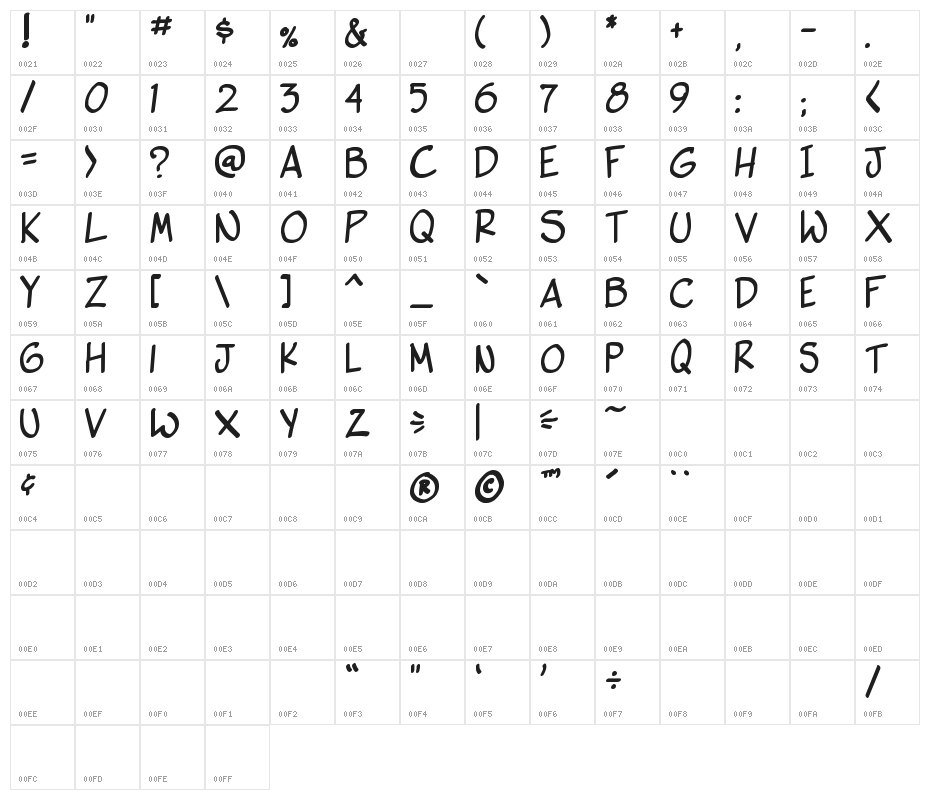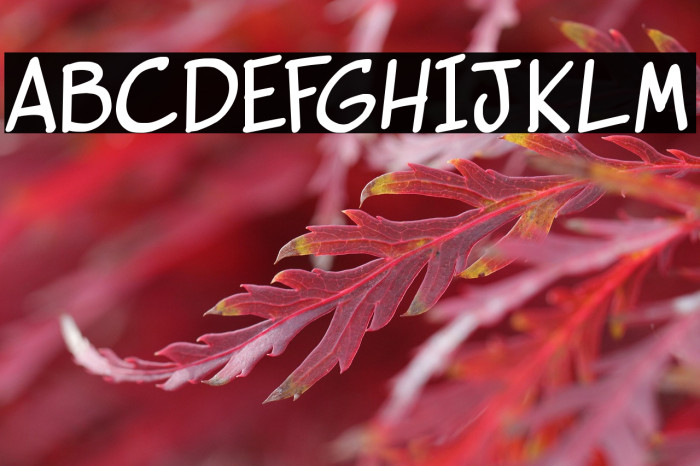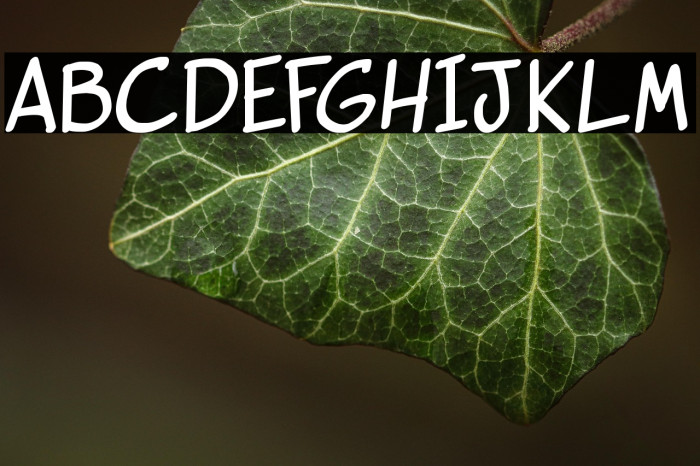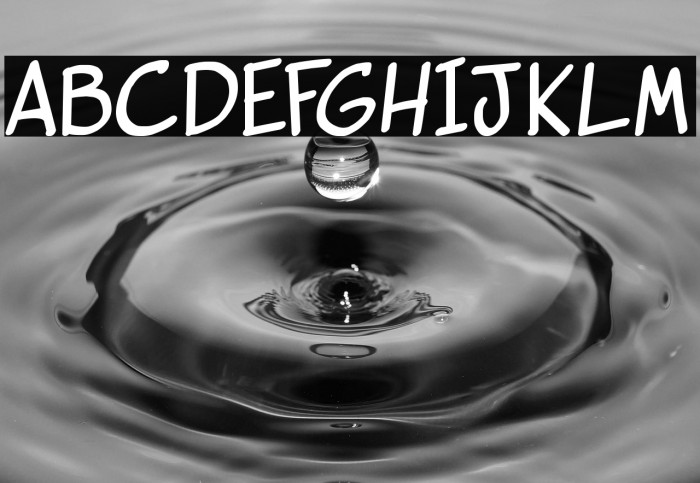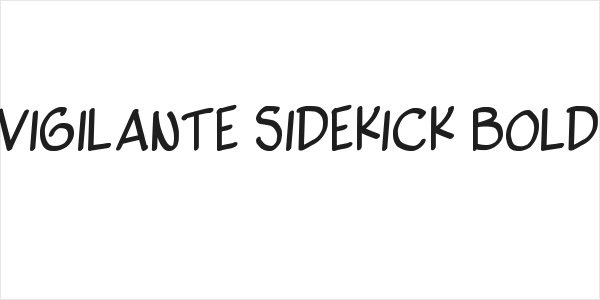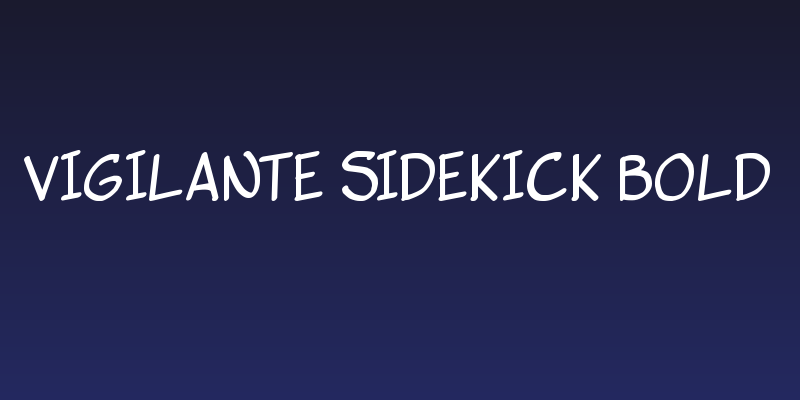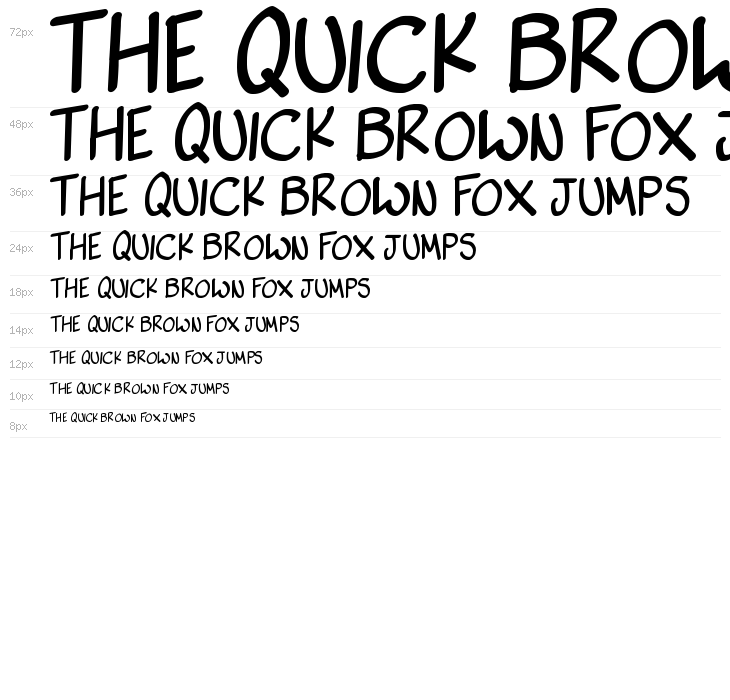
vigilante sidekick Bold Font
vigilante sidekick Bold Description
This playful and energetic font features a handwritten style with bold, rounded strokes that give it a lively and informal appearance. The characters are slightly slanted, adding a dynamic feel, while maintaining legibility. The uppercase and lowercase letters are consistent in style, with a smooth flow that mimics natural handwriting. The numbers and special characters are equally expressive, making this font versatile for various creative projects. Its boldness ensures visibility, making it suitable for attention-grabbing designs.
| Proposed Projects | Ideal for comic books, children's books, playful branding, and casual invitations. |